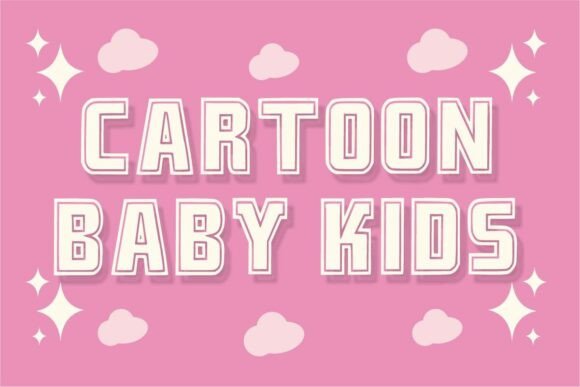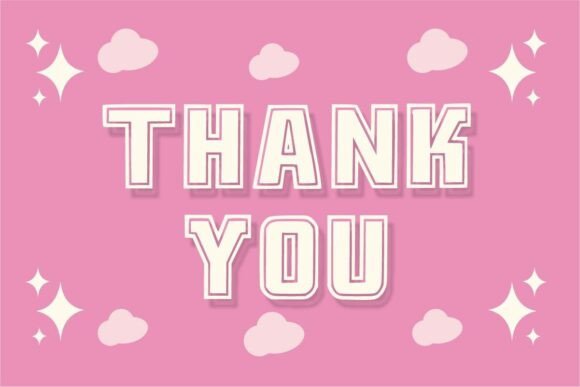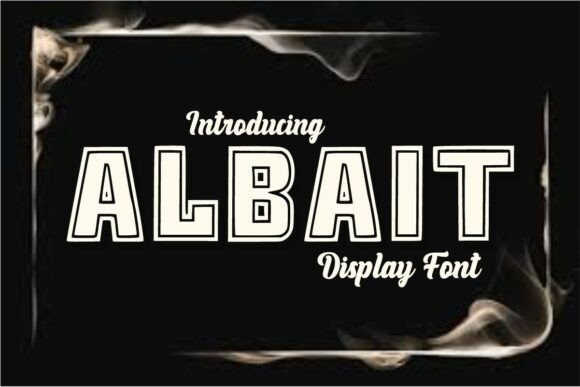
Introducing Albait Font: The Perfect Blend of Joy and Resilience
In the world of typography, fonts play a crucial role in conveying emotions and setting the tone for creative projects. If you’re a designer or crafter looking for a unique display font that exudes joy and resilience, look no further than Albait Font. Inspired by vertical lines, Albait Font is a clean and playful typeface that’s perfect for summer posters, event flyers, and playful branding.
The Inspiration Behind Albait Font
Albait Font draws inspiration from the simplicity and elegance of vertical lines. The font’s creator aimed to capture the essence of joy and resilience, resulting in a typeface that’s both cheerful and laid-back. The clean lines and relaxed feel of Albait Font make it an excellent choice for designers and crafters seeking to add a touch of playfulness to their creative projects.
Key Features of Albait Font
Albait Font boasts several key features that make it an attractive choice for designers and crafters:
- Unique Display Font: Albait Font is a one-of-a-kind display font that stands out from the crowd. Its distinctive design makes it perfect for headlines, titles, and other attention-grabbing elements.
- Clean Lines: The font features clean lines that give it a crisp and modern look. This makes it ideal for designs that require a touch of sophistication and elegance.
- Relaxed Feel: Despite its clean lines, Albait Font has a relaxed feel that makes it perfect for casual and playful designs. This balance of sophistication and playfulness makes it a versatile font for various creative projects.
- Playful Branding: Albait Font is an excellent choice for playful branding, as it can help create a fun and approachable tone for your brand.
Use Cases for Albait Font
Albait Font is a versatile typeface that can be used in various creative projects, including:
- Summer Posters: The font’s playful and cheerful feel makes it perfect for summer posters, flyers, and brochures.
- Event Flyers: Albait Font is an excellent choice for event flyers, as it can help create a fun and lively atmosphere.
- Playful Branding: The font’s unique design and relaxed feel make it an excellent choice for playful branding, including logos, packaging, and advertising materials.
- Digital and Print Media: Albait Font can be used in various digital and print media, including social media graphics, email newsletters, and magazine ads.
Tips for Using Albait Font
To get the most out of Albait Font, consider the following tips:
- Pair with Other Fonts: Experiment with pairing Albait Font with other fonts to create a unique and visually appealing design.
- Use in Headlines and Titles: Albait Font is perfect for headlines and titles, as it can help grab attention and set the tone for your design.
- Play with Colors: Don’t be afraid to experiment with different colors and gradients to add depth and visual interest to your design.
Albait Font is a unique and versatile typeface that’s perfect for designers and crafters seeking to add a touch of joy and resilience to their creative projects. With its clean lines, relaxed feel, and playful design, Albait Font is an excellent choice for summer posters, event flyers, and playful branding. Whether you’re working on a digital or print project, Albait Font is sure to bring a cheerful and laid-back feel to your design.